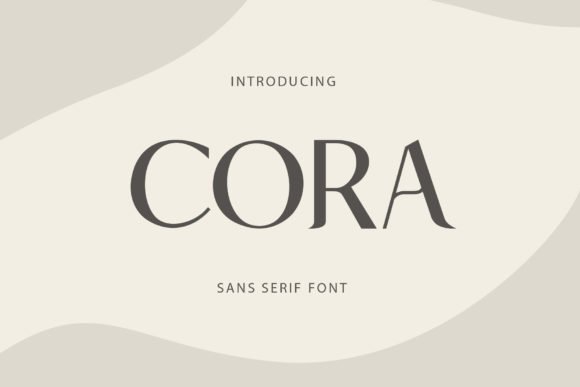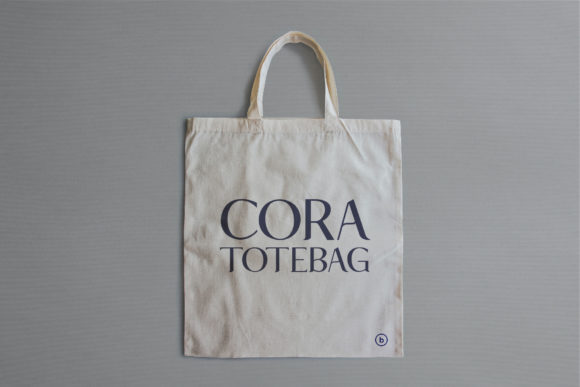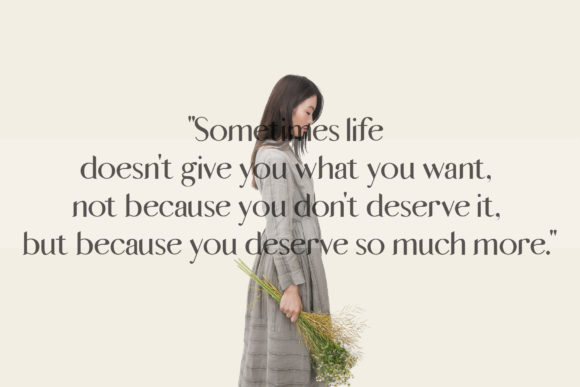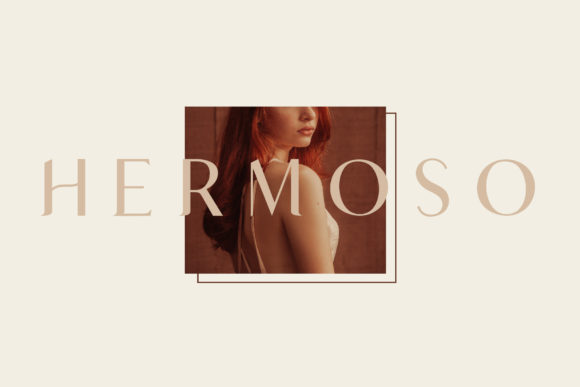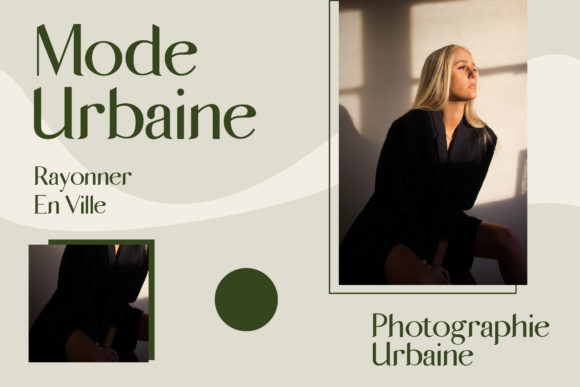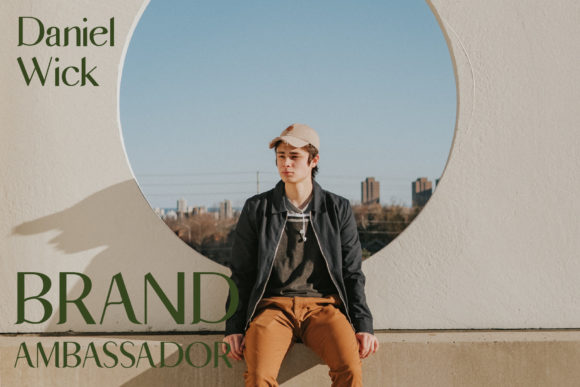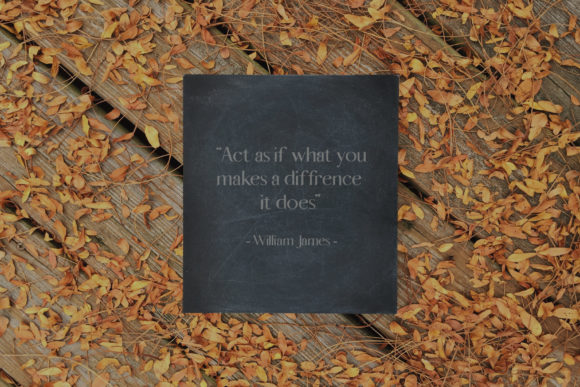
Unlock the Luxe Look with Cora Font
There’s nothing quite like the thrill of discovering a new font that elevates your creative projects to the next level. For designers, finding the perfect typography can be a game-changer – and Cora Font is one such discovery that’s sure to leave a lasting impression.
Cora Font is a stunning serif font that exudes elegance and sophistication. Thin, fashionable, and distinct, this font is designed to make each of your creations look luxurious and high-end. Whether you’re crafting letterheads, titles, or stationery, Cora Font is the perfect addition to your design arsenal. With its original look and versatility, Cora Font is an invaluable tool for designers who want to add a touch of luxury to their work.
Cora Font Key Features
- Font Family: Cora is a sans-serif font family.
- Font Sizes: Available in 4 different font weights (Light, Regular, Medium, Bold) and 3 different font styles (Italic, Oblique, Regular).
- Unique Characteristics: Cora features a clean and modern design with a unique geometric shape, making it perfect for use in corporate branding, digital products, and editorials.
Cora Font Review
I’ve had the chance to work with the Cora Font, and overall, I’m impressed with its capabilities. ✨ The font is highly customizable, allowing me to tweak the weight, spacing, and style to fit my design needs. The extensive glyph set is also a major plus, making it a great choice for multilingual projects.
While the Cora Font is a solid choice, there are some limitations to be aware of: ⚠️ The font may not be suitable for very small text sizes, as it can become difficult to read. Additionally, some users may find the font’s style a bit too modern or trendy, which may not be to everyone’s taste.
Overall, I think the Cora Font is a great option for designers looking for a highly customizable, versatile font. While it may not be perfect for every project, it’s a solid choice for many design applications.